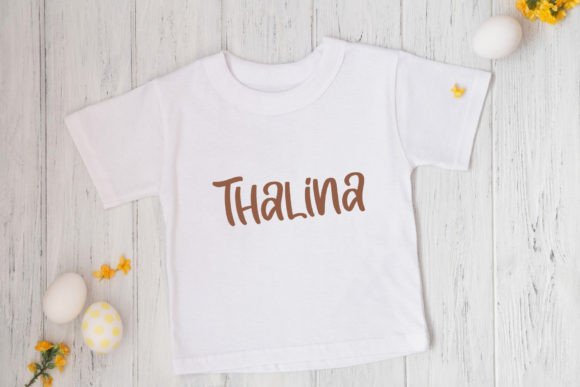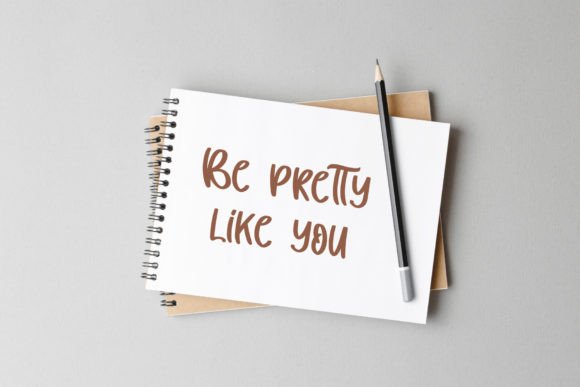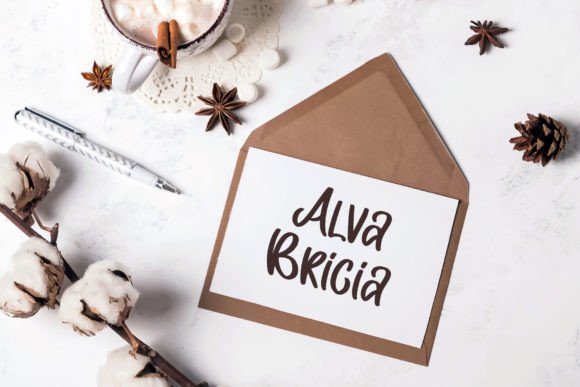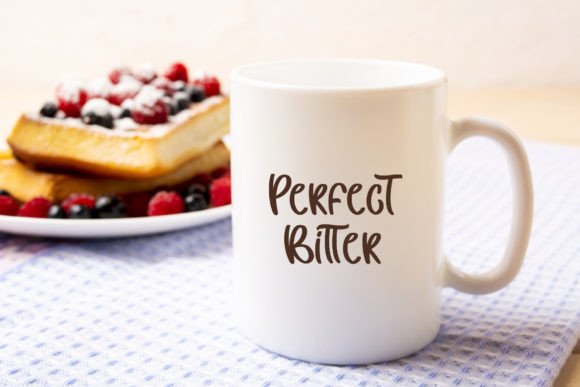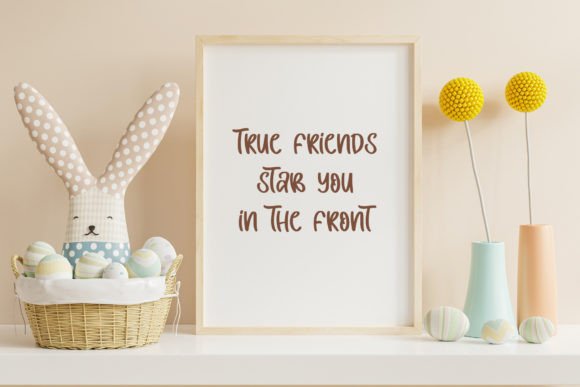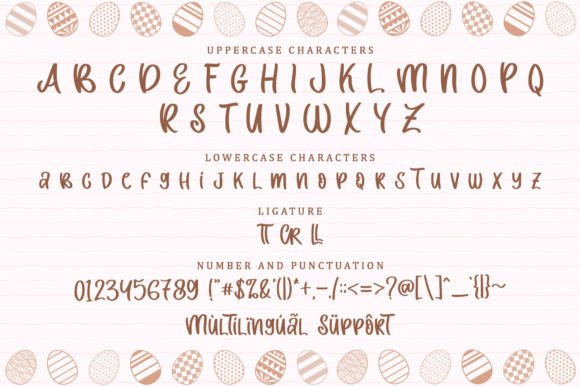
Easter Craft Font: The Ultimate Choice for Friendly and Playful Designs
Are you looking for a font that exudes warmth, friendliness, and playfulness? Look no further than the Easter Craft Font! This delightful handwritten font is perfect for designers, crafters, and anyone who wants to add a touch of whimsy to their projects. In this article, we’ll dive into the world of Easter Craft Font and explore its features, benefits, and uses.
What is Easter Craft Font?
Easter Craft Font is a childish, easy-to-read handwritten font that conveys impeccable friendliness. Its playful and carefree design makes it an ideal choice for a wide range of projects, from crafts and digital design to presentations and greeting cards. Whether you’re a designer, crafter, or DIY enthusiast, this font is sure to become your go-to choice for adding a personal touch to your work.
Key Features of Easter Craft Font
- Handwritten design: Easter Craft Font boasts a beautiful, handwritten design that adds a touch of warmth and personality to any project.
- Easy to read: The font is highly legible, making it perfect for use in digital and print materials, including body text and headings.
- Playful and friendly: The font’s playful and friendly design makes it an excellent choice for projects that require a lighthearted and approachable tone.
- Versatile: Easter Craft Font is suitable for a wide range of projects, from crafts and digital design to presentations and greeting cards.
Benefits of Using Easter Craft Font
- Adds a personal touch: Easter Craft Font adds a personal touch to any project, making it perfect for DIY enthusiasts and small business owners who want to stand out from the crowd.
- Enhances creativity: The font’s playful design inspires creativity and imagination, making it an excellent choice for artists, crafters, and designers.
- Perfect for Easter-themed projects: As the name suggests, Easter Craft Font is perfect for Easter-themed projects, including Easter cards, decorations, and digital designs.
- Great for kids’ projects: The font’s childish design makes it an excellent choice for kids’ projects, including school assignments, crafts, and activities.
Uses of Easter Craft Font
Easter Craft Font is a versatile font that can be used in a wide range of projects, including:
- Crafts: Use Easter Craft Font to add a personal touch to your crafts, including scrapbooking, card making, and DIY decorations.
- Digital design: The font is perfect for digital design projects, including social media graphics, blog posts, and website headers.
- Presentations: Add a touch of friendliness and approachability to your presentations with Easter Craft Font.
- Greeting cards: Use the font to create beautiful and personalized greeting cards for Easter and other special occasions.
Tips for Using Easter Craft Font
- Pair with other fonts: Experiment with pairing Easter Craft Font with other fonts to create unique and interesting combinations.
- Use in large and small sizes: The font is highly legible in both large and small sizes, making it perfect for use in body text and headings.
- Add embellishments: Add embellishments, such as Easter eggs, flowers, and other decorations, to enhance the font’s playful design.
| Author | Esa Maradany |
Easter Craft Font is a delightful handwritten font that conveys impeccable friendliness and playfulness. Its versatile design makes it perfect for a wide range of projects, from crafts and digital design to presentations and greeting cards. Whether you’re a designer, crafter, or DIY enthusiast, Easter Craft Font is sure to become your go-to choice for adding a personal touch to your work. So why not give it a try and see the difference it can make in your projects?